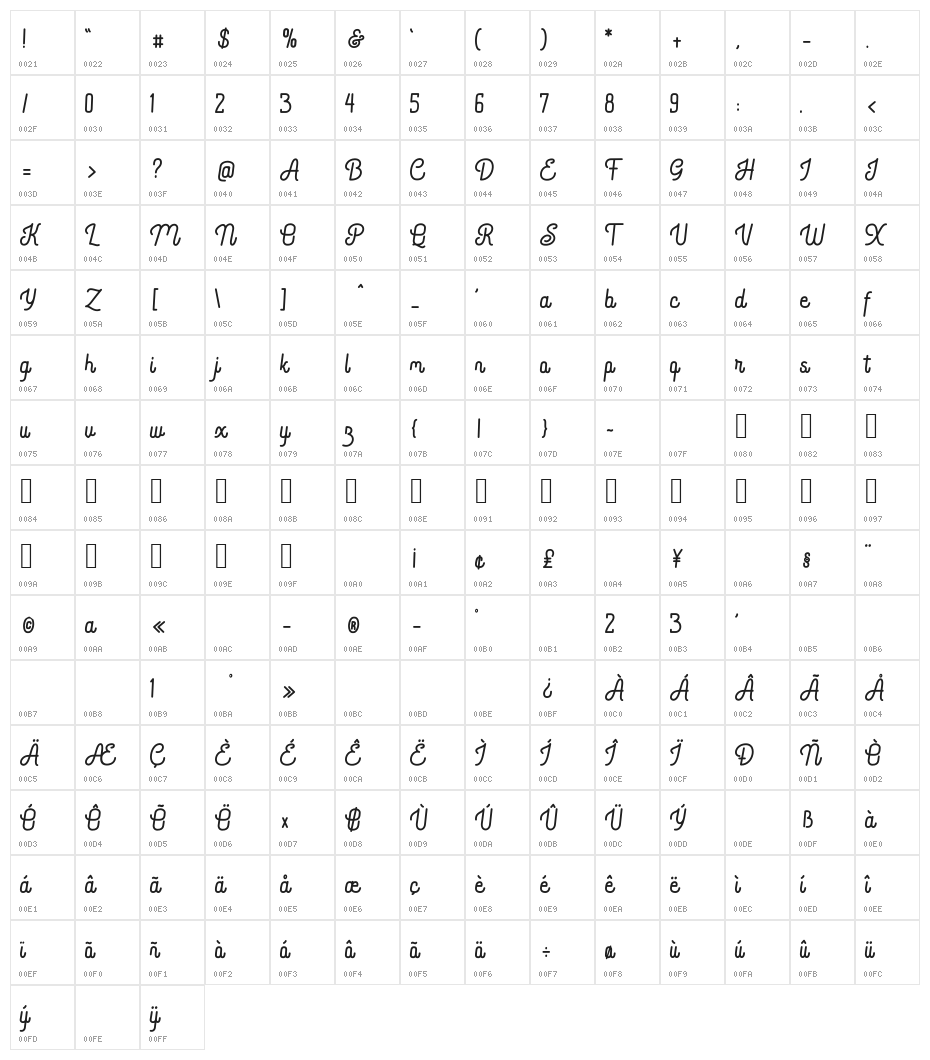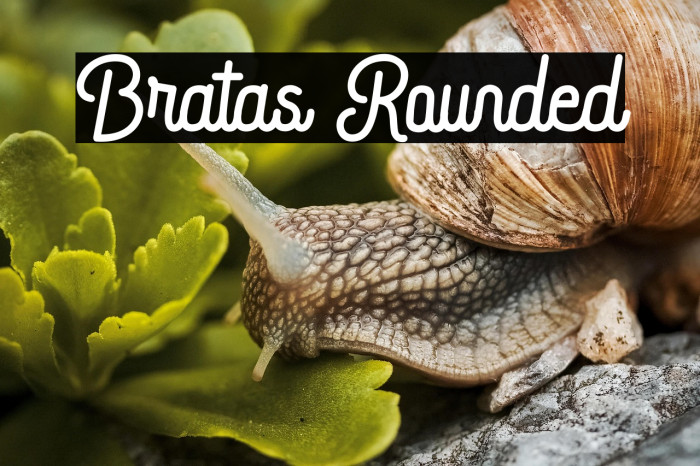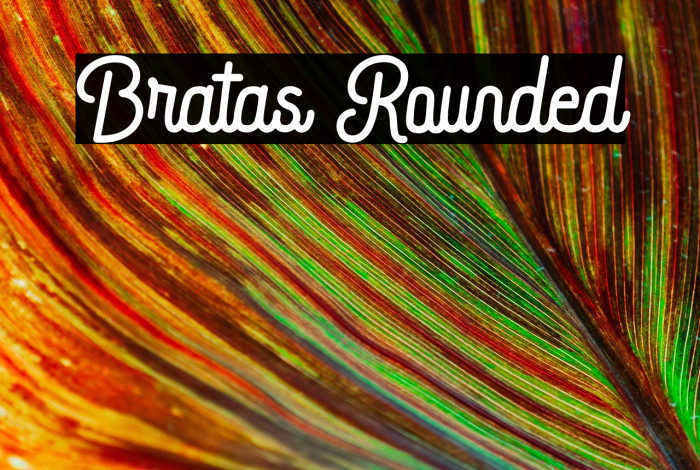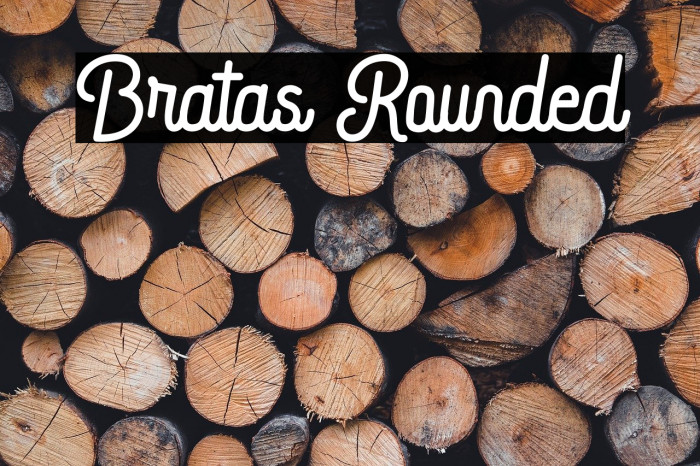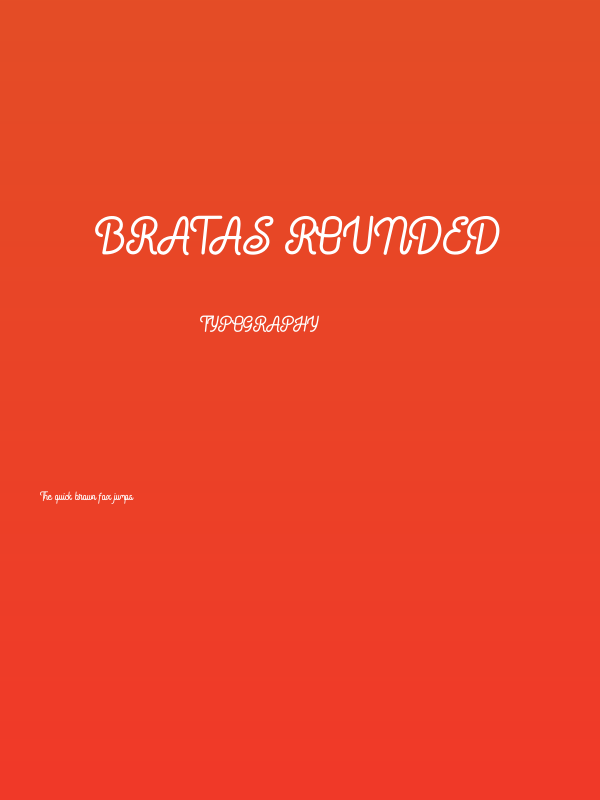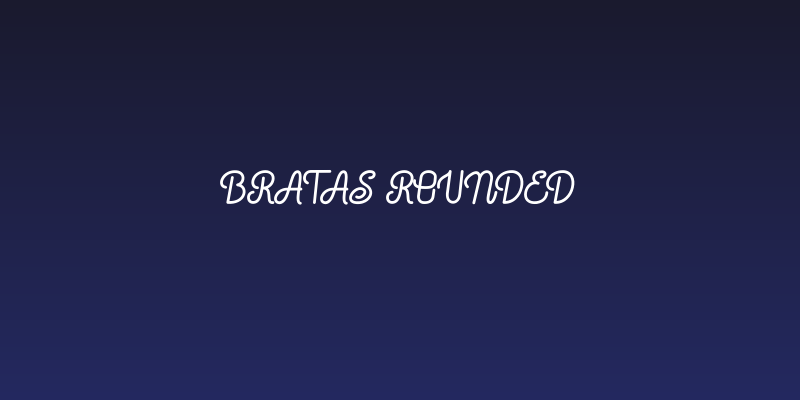
Bratas Rounded Font
Bratas Rounded Description
This font features a playful and rounded script style, characterized by its smooth, flowing curves and connected letters. The uppercase letters exhibit a consistent looped design, adding a sense of movement and elegance. The lowercase letters maintain a cohesive style with slight variations in height and width, enhancing readability while preserving the decorative nature. Numbers and special characters are designed to match the overall aesthetic, ensuring uniformity across different uses. The font's rounded edges and uniform stroke width give it a friendly and approachable appearance, making it suitable for a variety of creative projects.
| Use Case | Logos, Headlines, Decorative text |
| Proposed Projects | Ideal for greeting cards, invitations, playful branding, children's books, and decorative signage. |